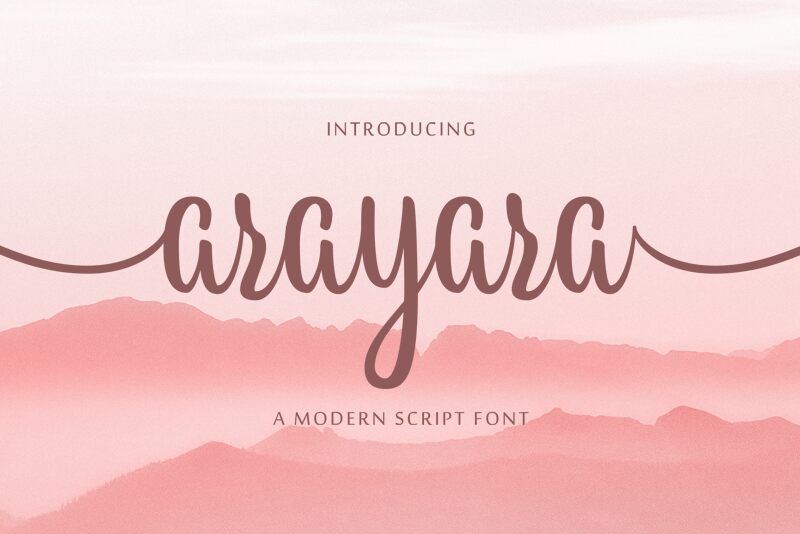
Arayara Script is a modern and elegant font script. Comes with many opentype features, upper and lower case standard characters, punctuation and numerals, multilingual characters, ligatures, stylistic alternates, beginning and ending, and many more glyph.
semuthitam creative